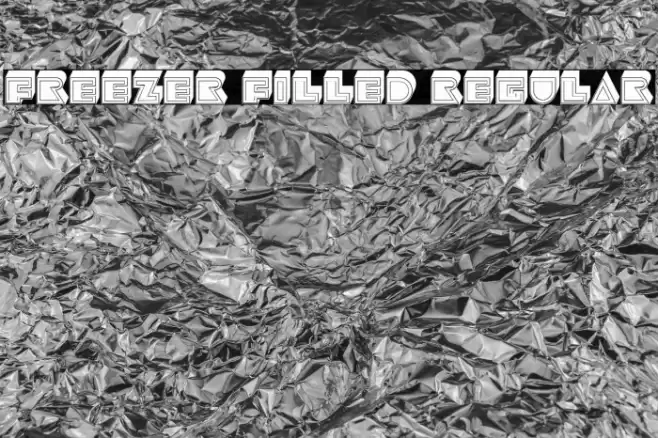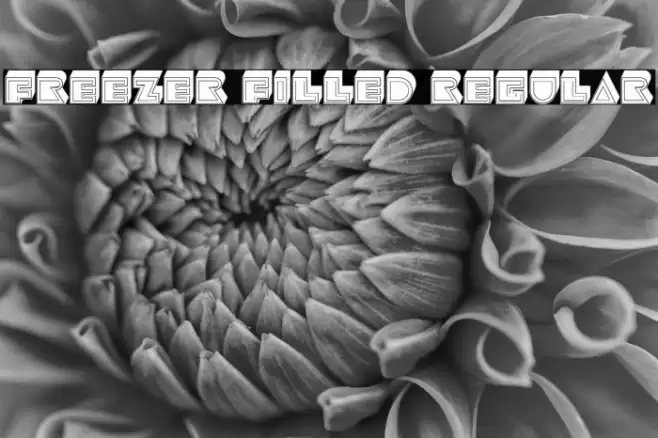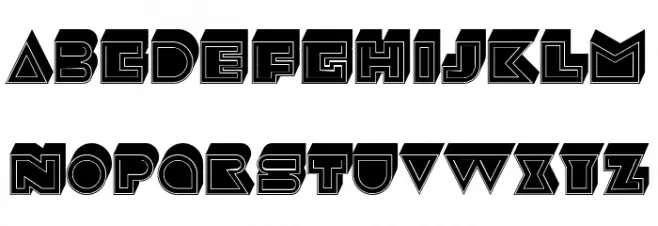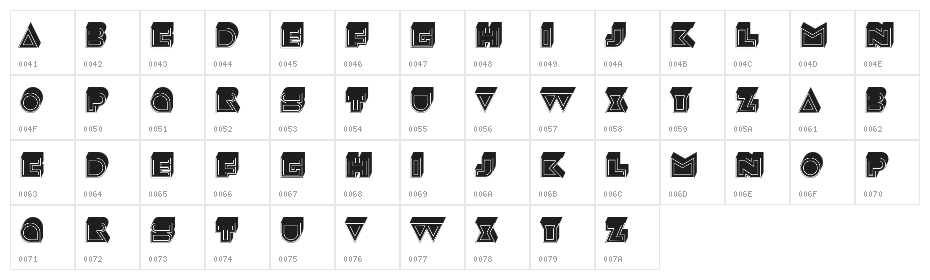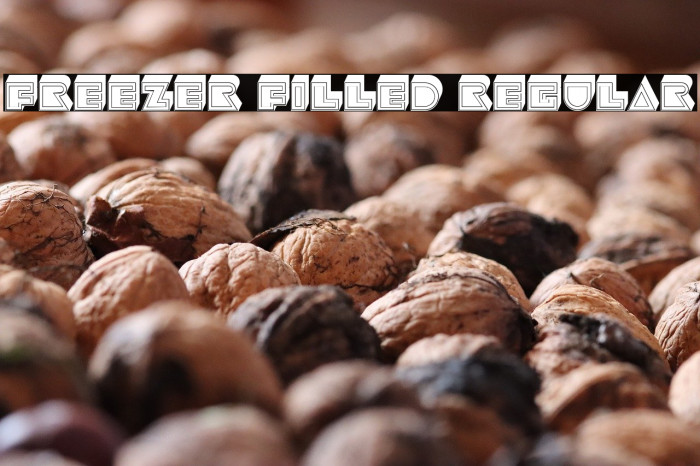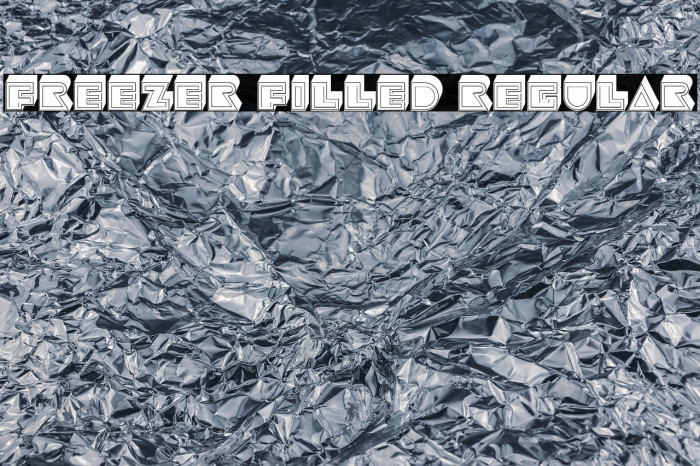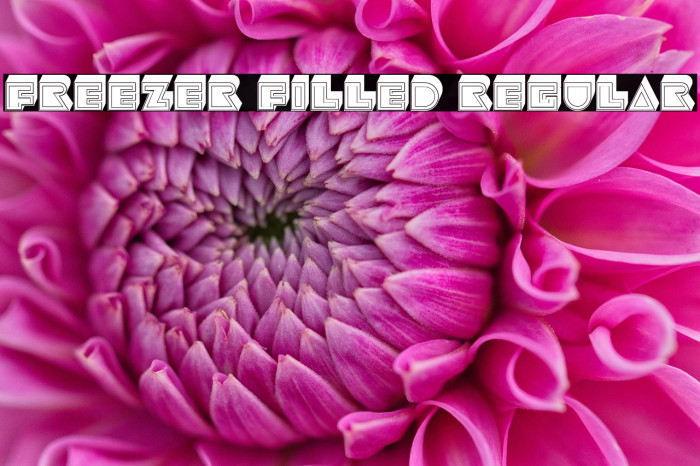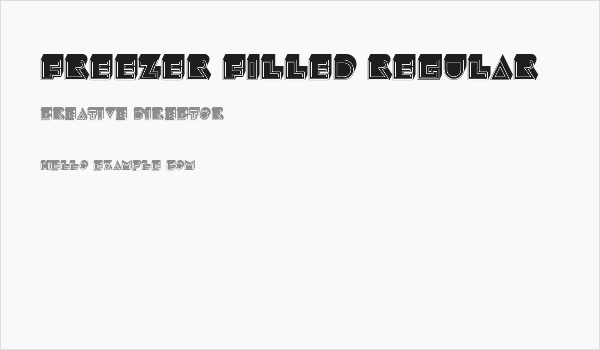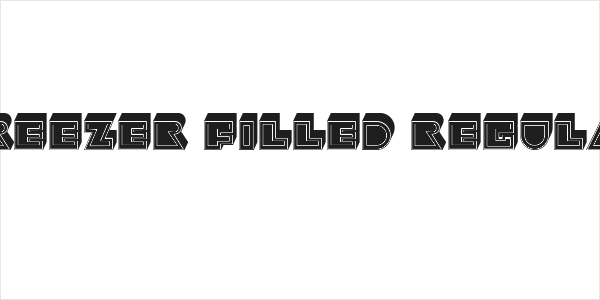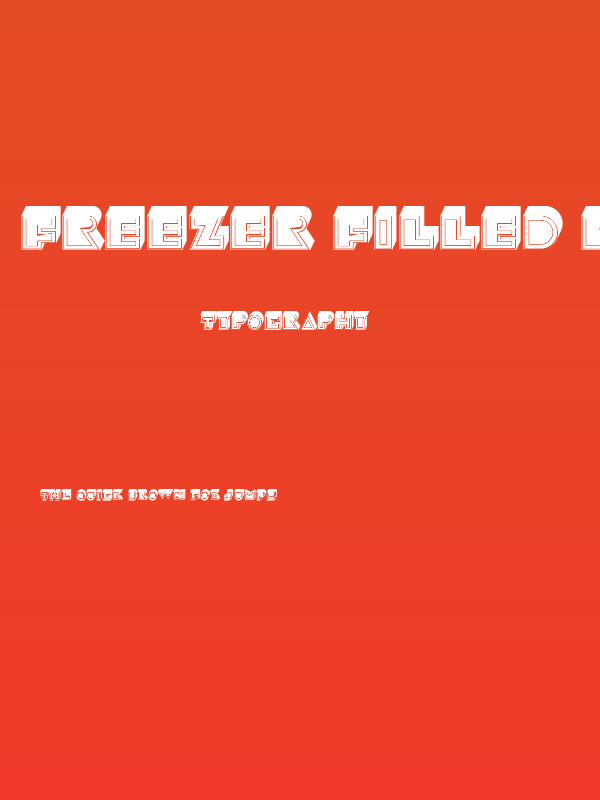
Freezer Filled Regular Font
Freezer Filled Regular Description
This font features a bold, geometric design with a three-dimensional effect, giving it a striking and modern appearance. The characters are outlined with a thick border, creating a sense of depth and dimension. Each letter is crafted with sharp angles and clean lines, contributing to a futuristic and dynamic look. The font's unique style makes it stand out, with a distinct emphasis on symmetry and structure. Its boldness and visual impact make it suitable for attention-grabbing headlines and creative projects that require a strong visual presence.
A bold, geometric font with a 3D effect and sharp angles, perfect for modern designs from Uncategorized fonts.